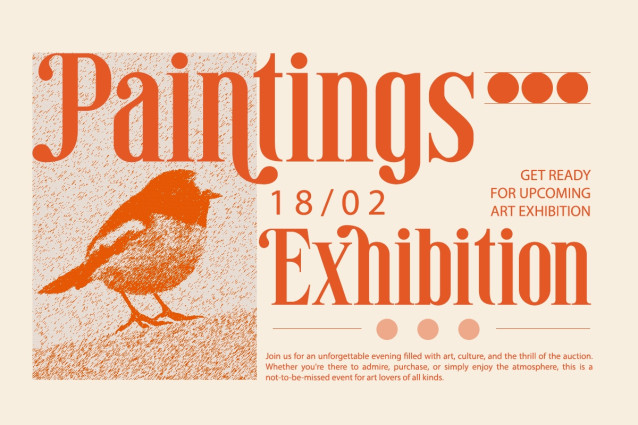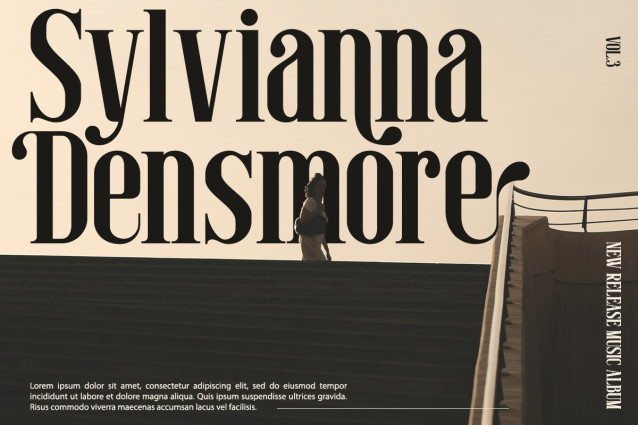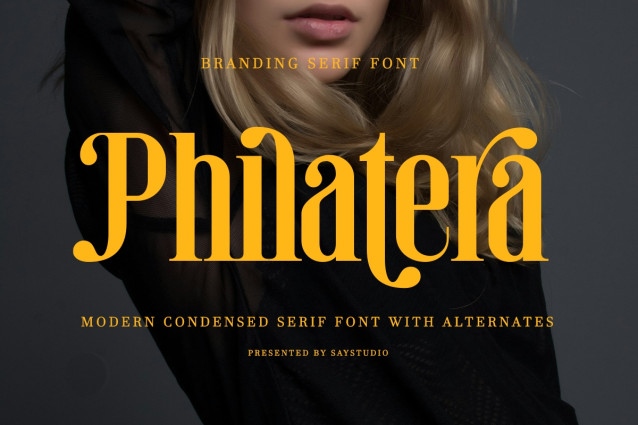
Philatera – Modern Condensed Serif Font
Philatera is a sophisticated condensed serif font designed to bring a refined editorial character to modern visual identities. Its tall proportions, elegant contrast, and distinctive serif details create a confident yet graceful appearance, while its alternate characters add extra personality and flexibility to your typography.